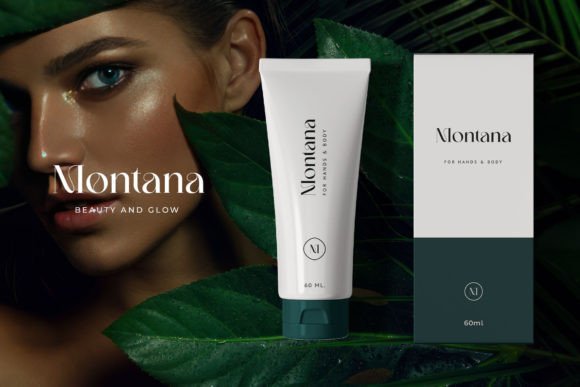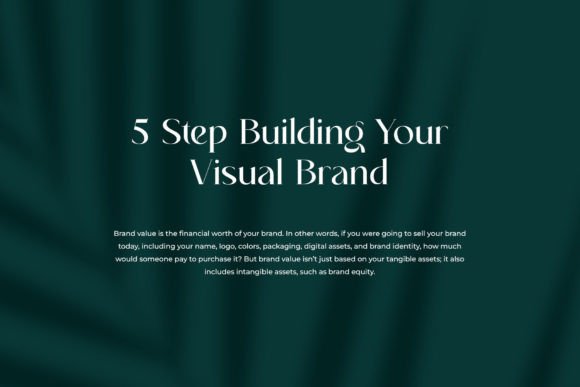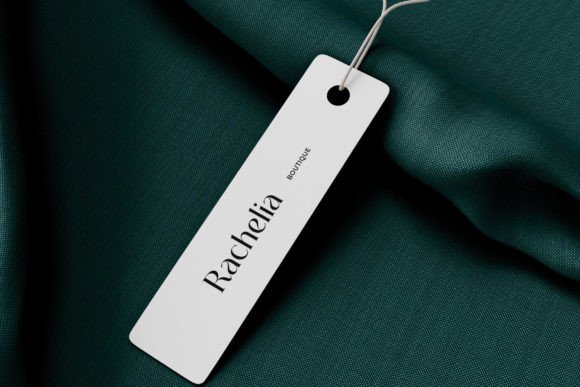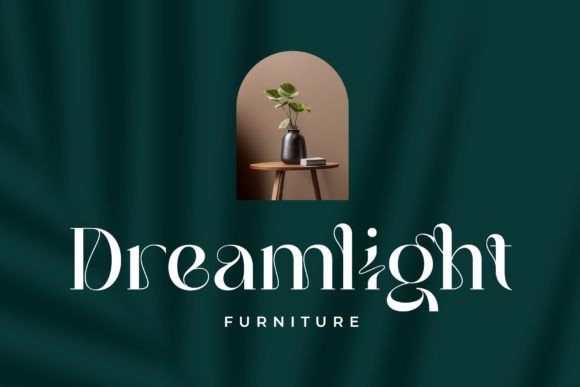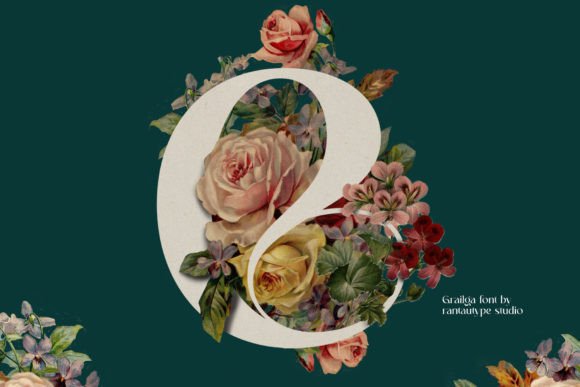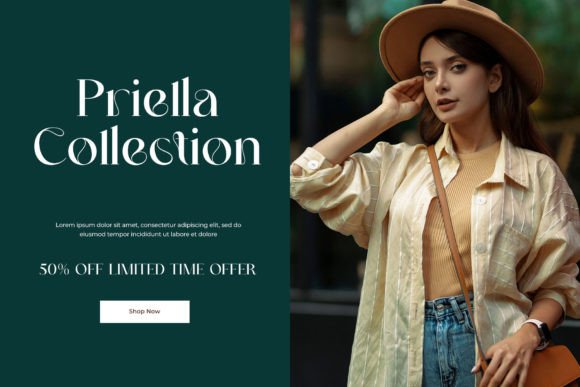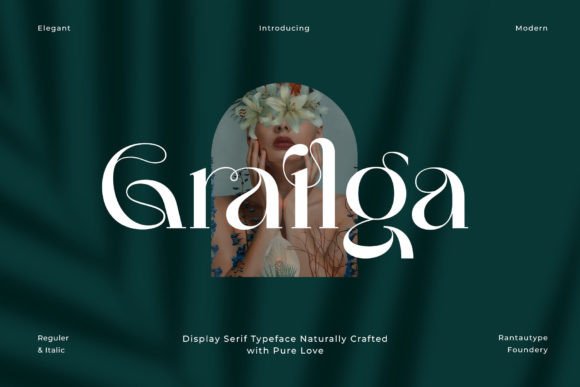
Introducing Grailga Font: Elevate Your Designs with Elegance and Sophistication
In the world of typography, a well-crafted font can make all the difference in elevating your designs from ordinary to extraordinary. If you’re a designer or crafter on the lookout for a typeface that exudes elegance, sophistication, and a touch of modernity, look no further than Grailga Font. This stunning serif typeface is designed to bring a natural and refined aesthetic to your creative projects, making it an ideal choice for those who appreciate the finer details in design.
The Essence of Grailga: Natural Elegance in Every Curve
Grailga Font is characterized by its elegant, flowing curves that lend a sense of fluidity and harmony to any design. The term “natural” and “elegant” perfectly encapsulate the essence of this beautiful typeface. Each character in Grailga is meticulously crafted to flow beautifully and uniquely, connecting seamlessly with others to create a cohesive and visually appealing text. This attention to detail and commitment to aesthetic excellence make Grailga a standout in the world of typography.
Versatility and Contemporary Appeal
One of the key advantages of Grailga Font is its versatility. Whether you’re working on a chic lifestyle design, a branding project, or simply looking to add an elegant touch to your digital creations, Grailga offers the perfect blend of style and functionality. Its contemporary appeal ensures that your designs will not only stand out but also remain relevant in today’s fast-paced digital landscape. From logos and advertisements to photography watermarks, stationery, and beyond, Grailga’s adaptability knows no bounds.
Ideal Applications for Grailga Font
So, where can you use Grailga Font to make an impact? The possibilities are endless, but here are some ideal applications to consider:
- Logos: Create a lasting impression with a logo that embodies elegance and sophistication.
- Advertisements: Stand out in a crowded marketplace with eye-catching ads that showcase your brand’s personality.
- Photography Watermarks: Add a professional touch to your photos with a subtle yet stylish watermark.
- Stationery: Elevate your business correspondence with beautifully designed letters, cards, and envelopes.
- Branding Projects: Develop a cohesive brand identity that reflects your values and aesthetic.
- Displays and Magazines: Create visually stunning displays and magazine layouts that captivate your audience.
- Invitations: Make your invitations unforgettable with Grailga’s elegant charm.
- Corporate Branding: Convey professionalism and sophistication in all your corporate communications.
- Product Designs: Add a touch of elegance to your product packaging and labels.
- Labels and Business Projects: Use Grailga to add a refined touch to any business project or label design.
Why Choose Grailga Font?
In a sea of typefaces, Grailga Font stands out for several reasons:
- Unique Design: Grailga’s flowing curves and natural elegance make it a one-of-a-kind typeface.
- Versatility: Suitable for a wide range of design projects, from digital to print.
- Contemporary Appeal: Ensures your designs feel modern and relevant.
- Ease of Use: Grailga’s clean lines and classic serif elements make it easy to read and work with.
Grailga Font is more than just a typeface – it’s a design statement. With its elegant, flowing curves and natural aesthetic, Grailga offers designers and crafters the perfect tool to elevate their creative projects. Whether you’re aiming to create a chic lifestyle design, develop a brand identity, or simply add an elegant touch to your digital creations, Grailga Font is an excellent choice. Discover the beauty and versatility of Grailga today and take your designs to new heights of sophistication and style.